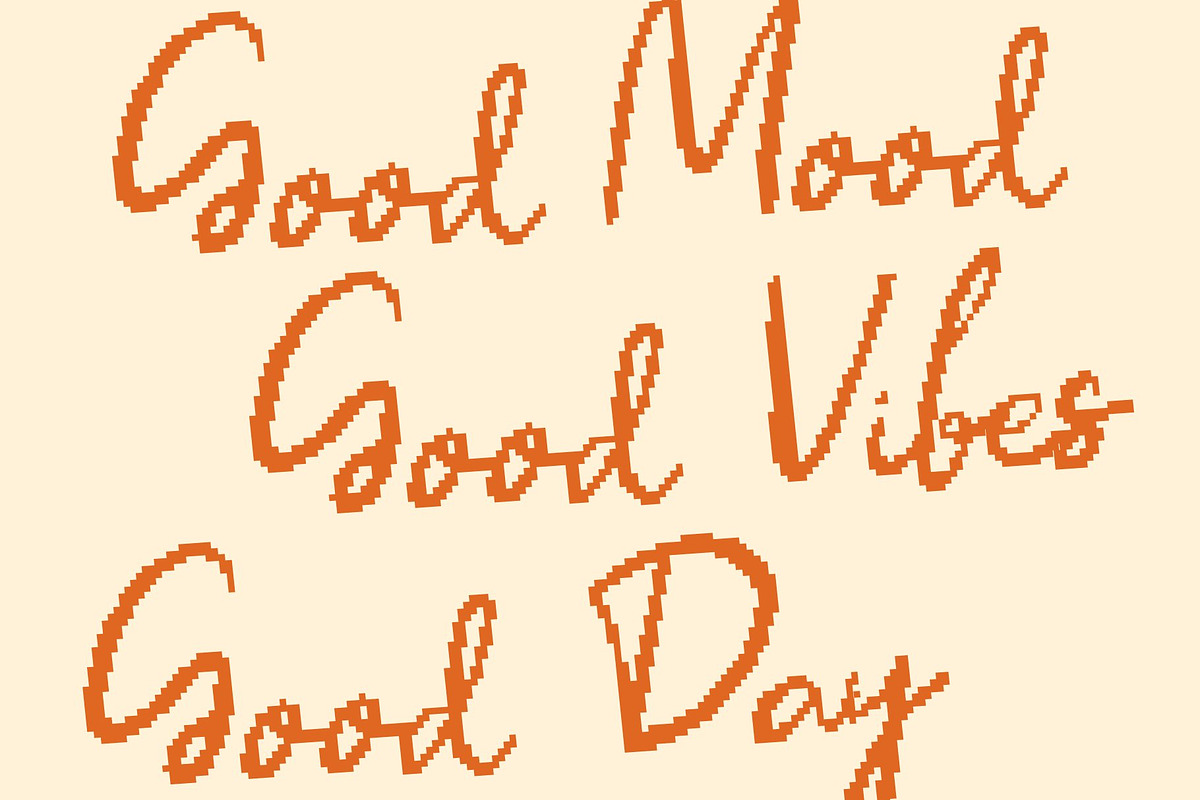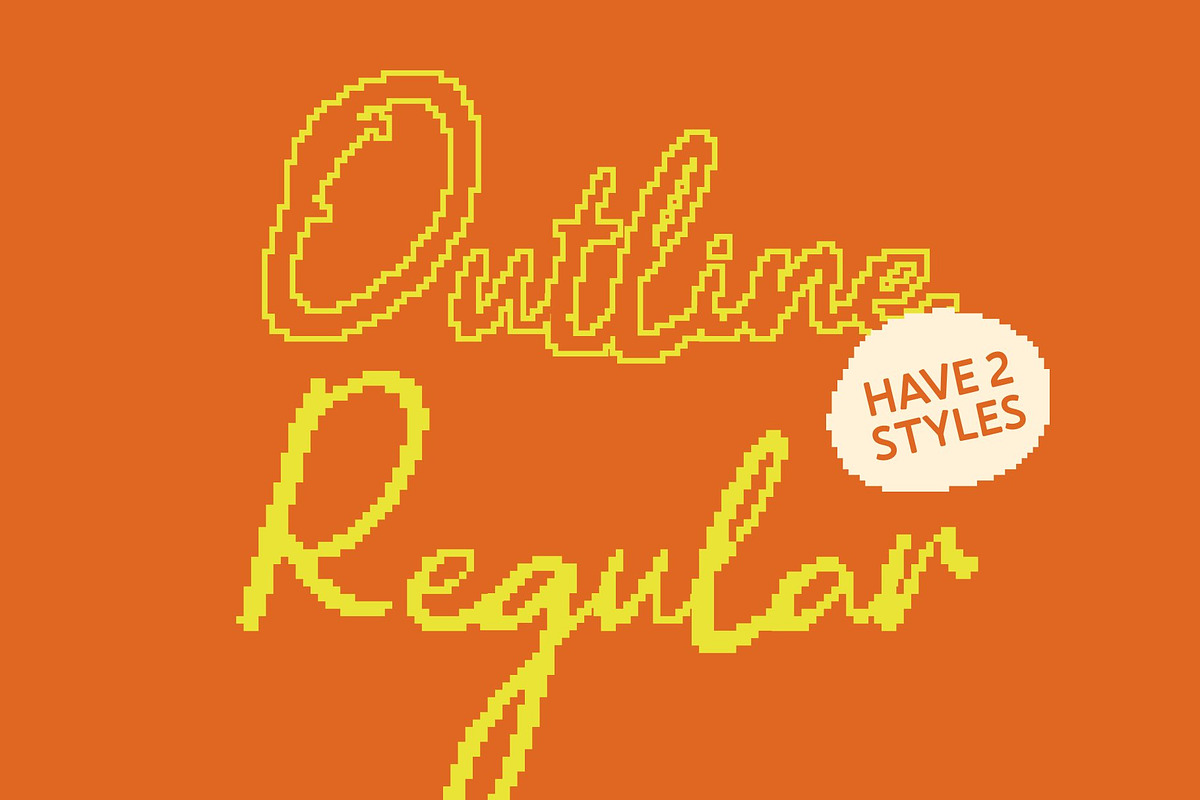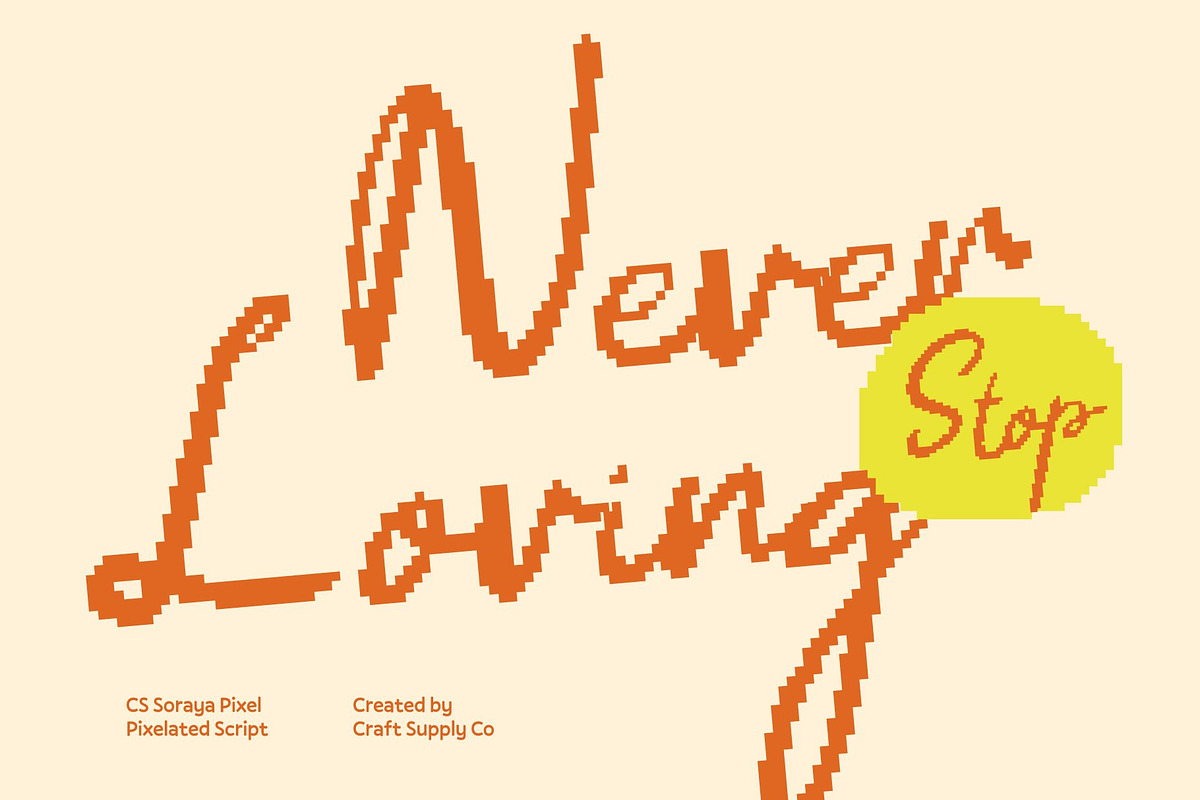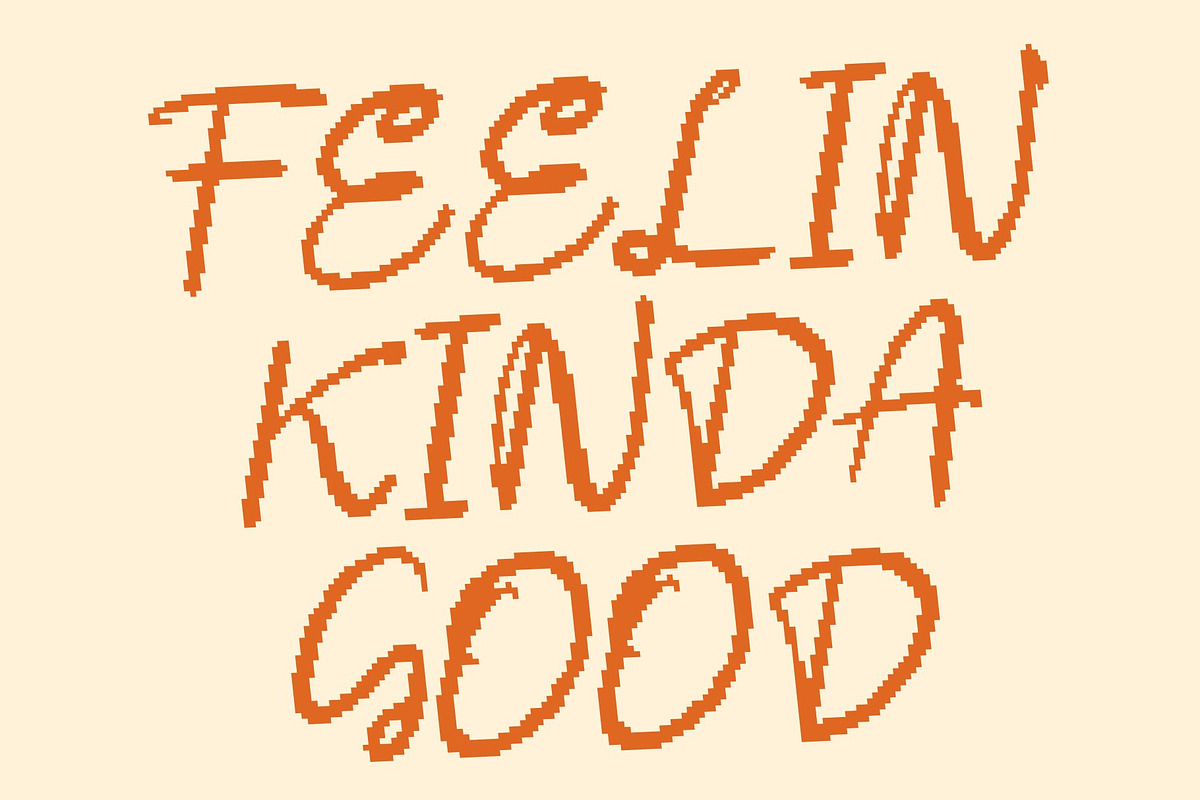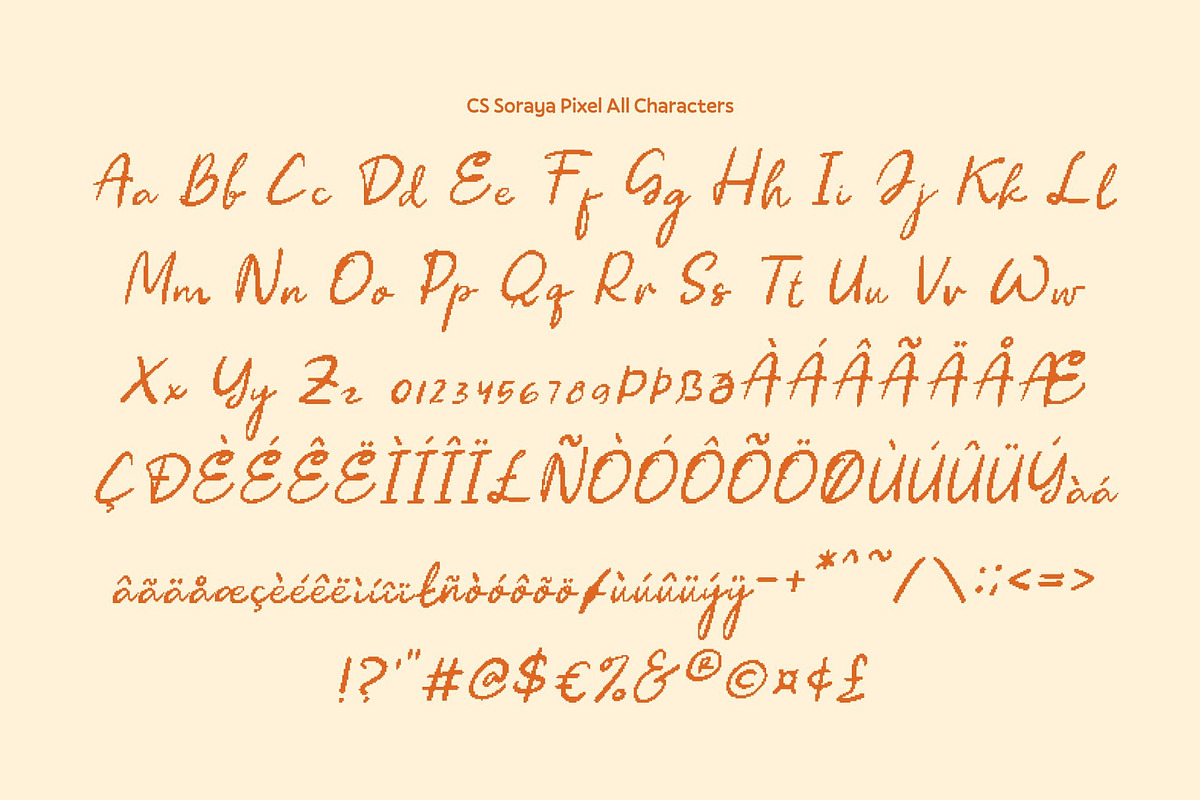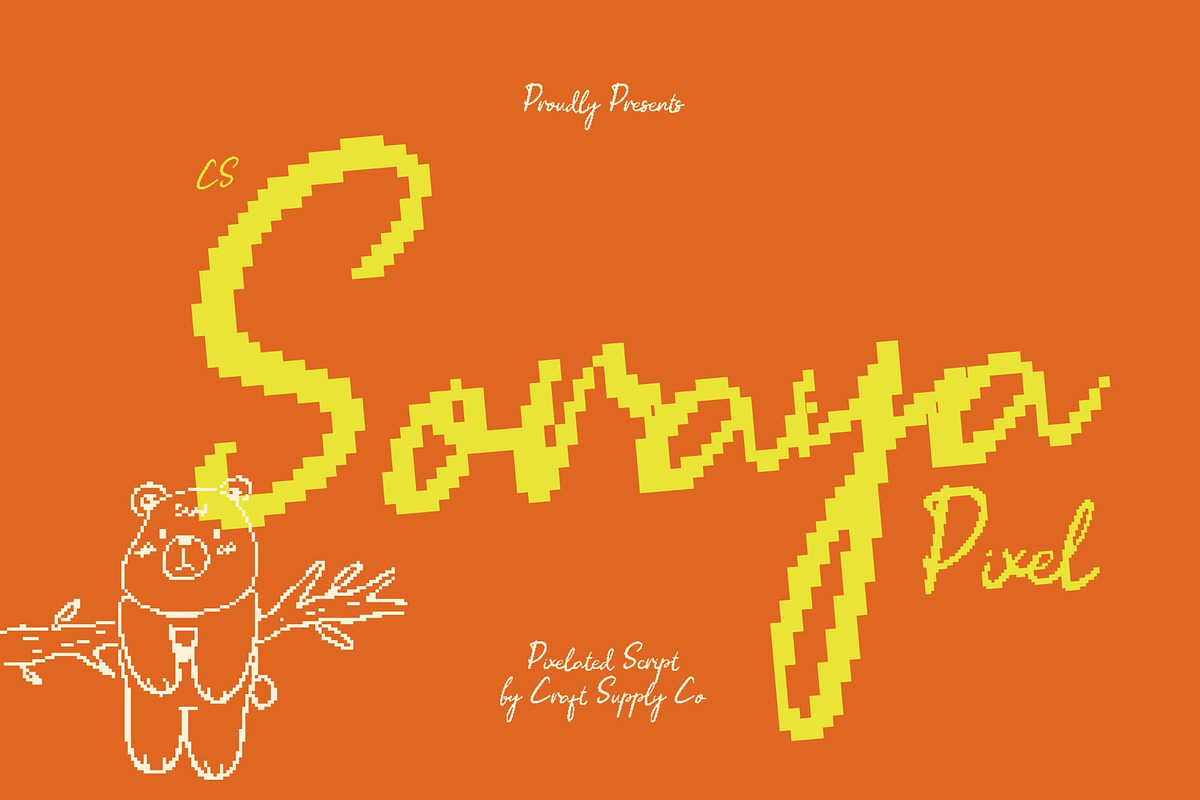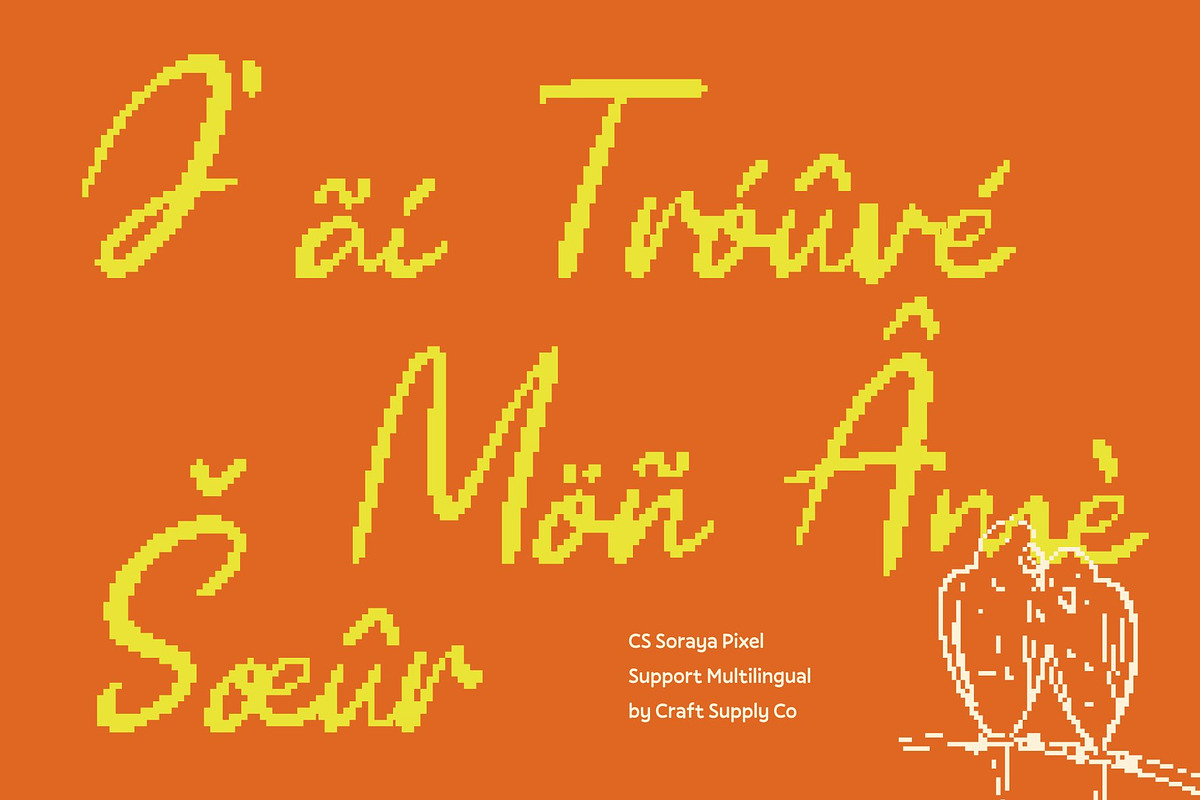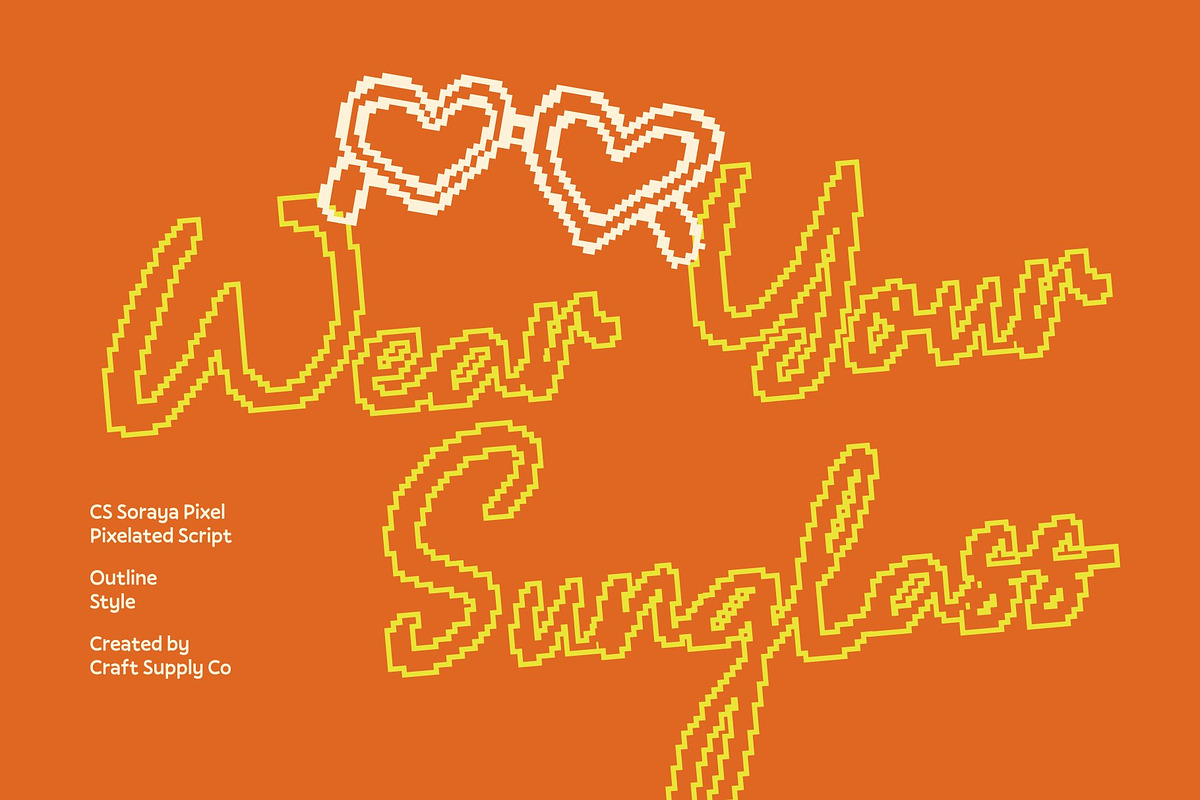
CS Soraya Pixel
CS Soraya Pixel – Carefree Vacation Vibes in Script Form
Vacay Script with Pixel-Kissed Relaxation This is a playful vacation-inspired script font that captures the joyful freedom of sunny escapes and laid-back summer days enhanced with subtle pixel detailing. Its flowing strokes and breezy rhythm reflect spontaneous handwriting, while gentle pixel accents introduce a fresh, modern twist. The result is a script that feels relaxed, uplifting, and digitally refined.
Smooth Curves with Casual Digital Charm Featuring fluid connections and soft curves, each letter carries a light, effortless personality. The natural handwritten flow is complemented by crisp pixel nuances, adding clarity without disturbing its easygoing spirit. This balance creates a cool, friendly style that feels both organic and contemporary.
Relaxed Expression for Lifestyle and Event Design This font radiates warmth and positivity, making it ideal for lifestyle visuals, travel campaigns, summer promotions, and creative storytelling. Its vacay-inspired script shines in headlines and accent typography, adding personality and movement while maintaining readability and visual harmony.
Perfect for Social Media, Branding, and Seasonal Projects Designed for feel-good applications, this font works beautifully in social media graphics, branding, event materials, café menus, packaging, and promotional designs. Especially suited for travel brands, beach events, summer festivals, and creative businesses, this font brings holiday-inspired charm with a subtle modern pixel signature.
- CS Soraya Pixel Regular
- CS Soraya Pixel Outline